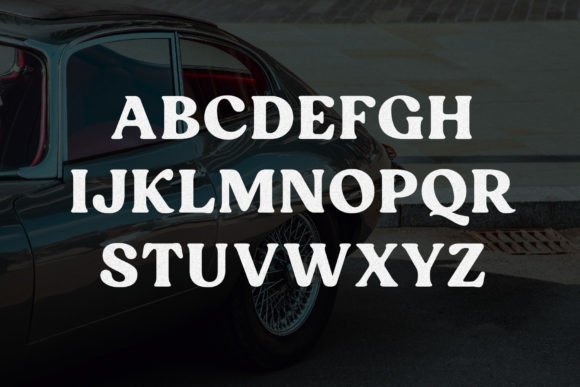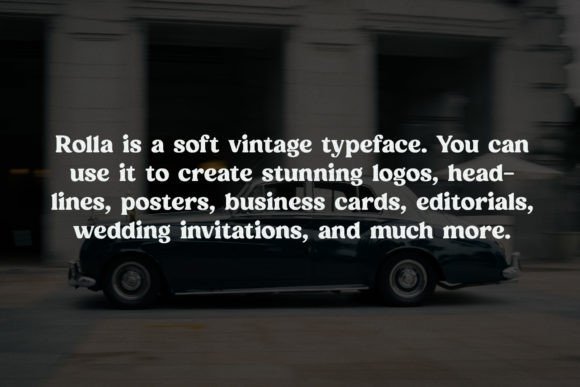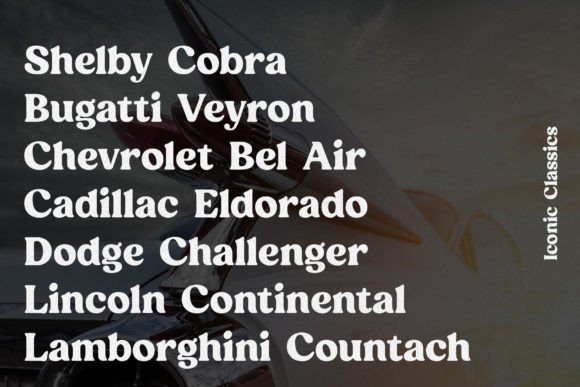
Introduction to Rolla Font
Rolla is a bold vintage-style serif font.
What makes it special is its charming rounded edges and curves Rolla brings back that chunky retro typography to the modern era.
Key Features of Rolla Font
Why Choose Rolla Font?
Rolla Font offers exceptional quality and versatility, making it a valuable addition to your design toolkit. Whether you’re creating for personal projects or commercial use, Rolla Font delivers professional results.